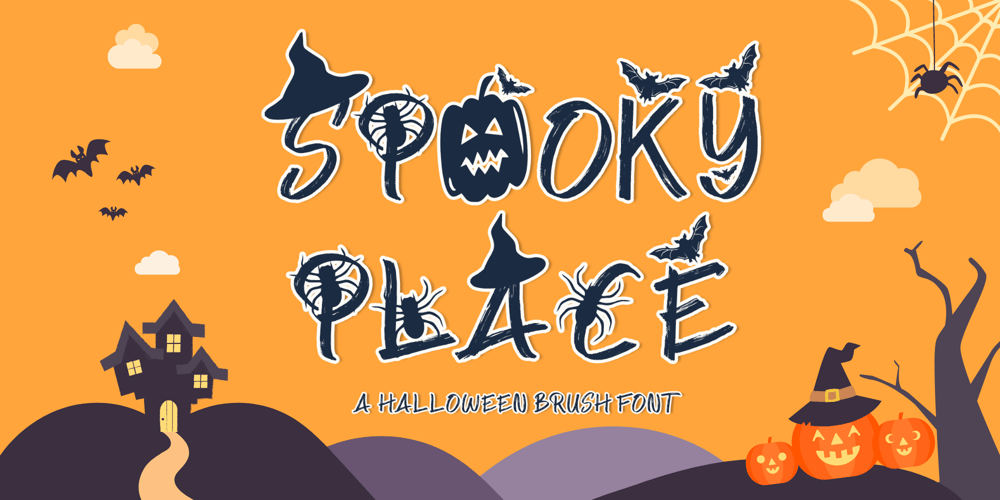
Spooky Place Font Family was designed by Agung Eko Nugroho and published by AEN Creative Studio. Spooky Place contains 2 styles and family package options. Spooky Place is a cool and quirky halloween display font. This font is PUA encoded which means you can access all of the glyphs and swashes with ease! Add it confidently to your favorite creations and let yourself be amazed by the outcome generated.